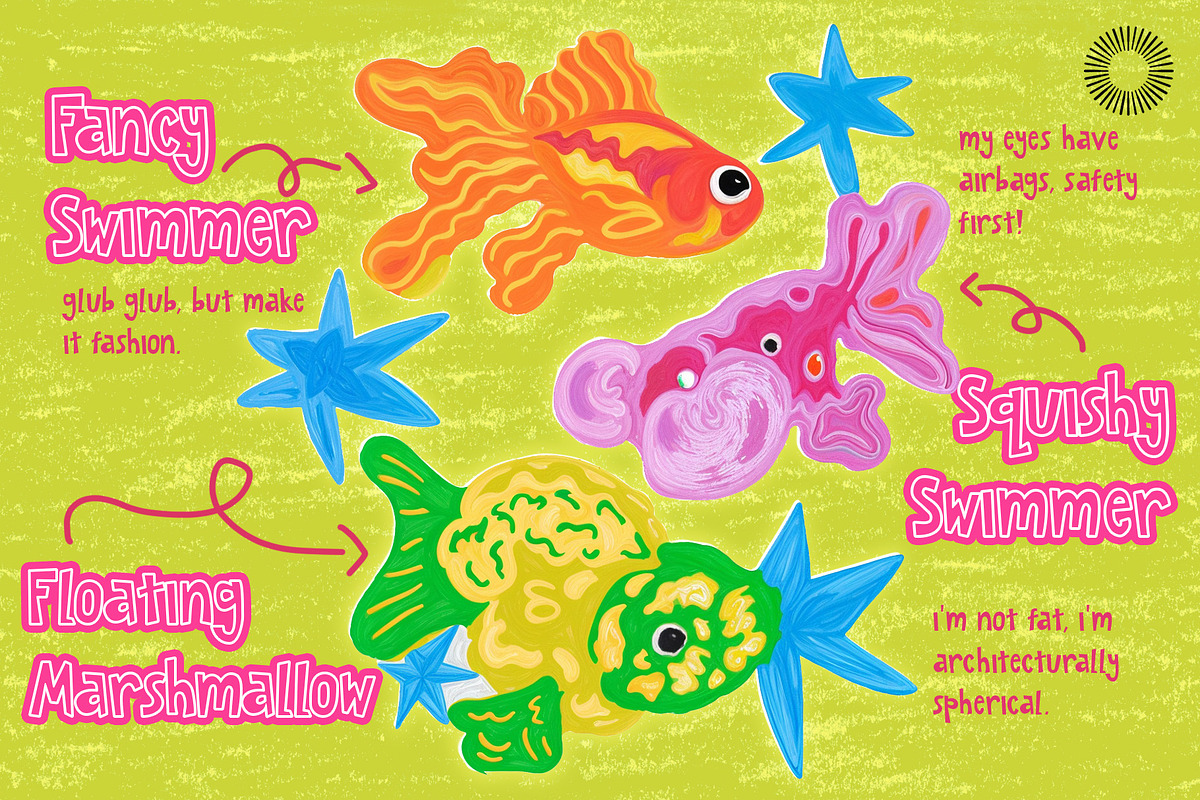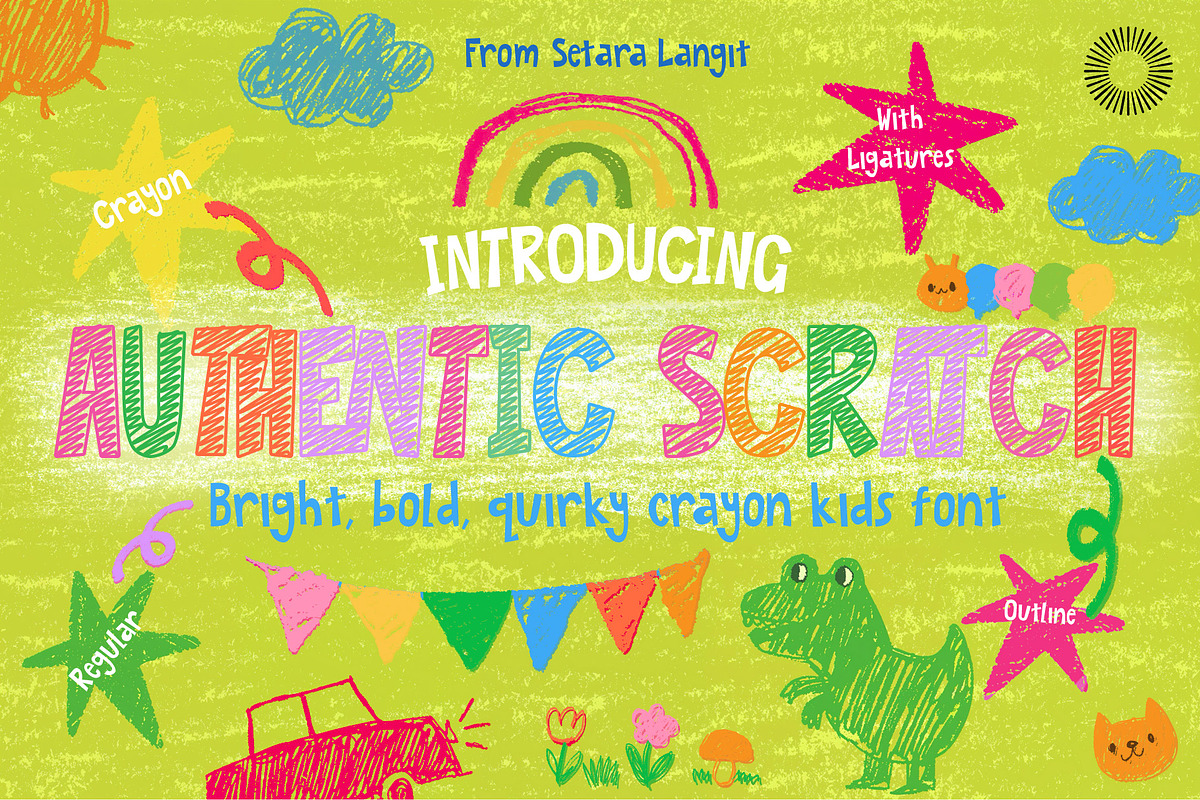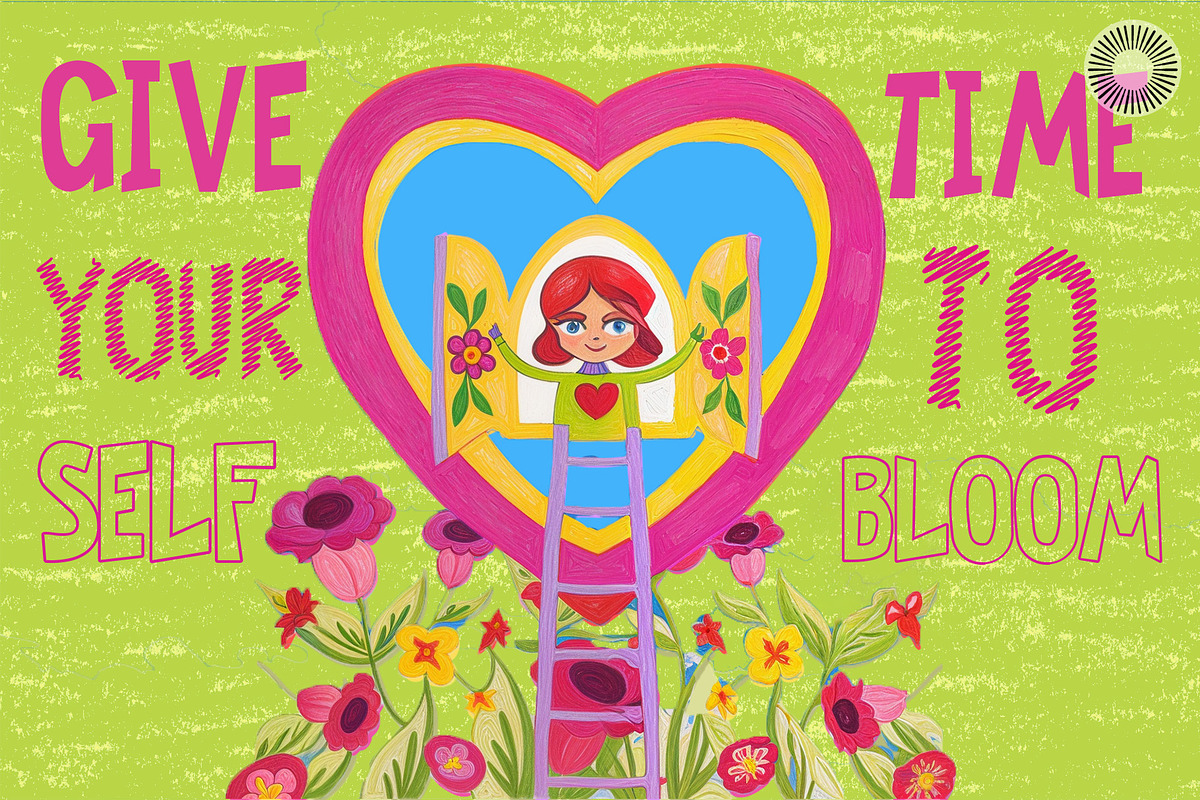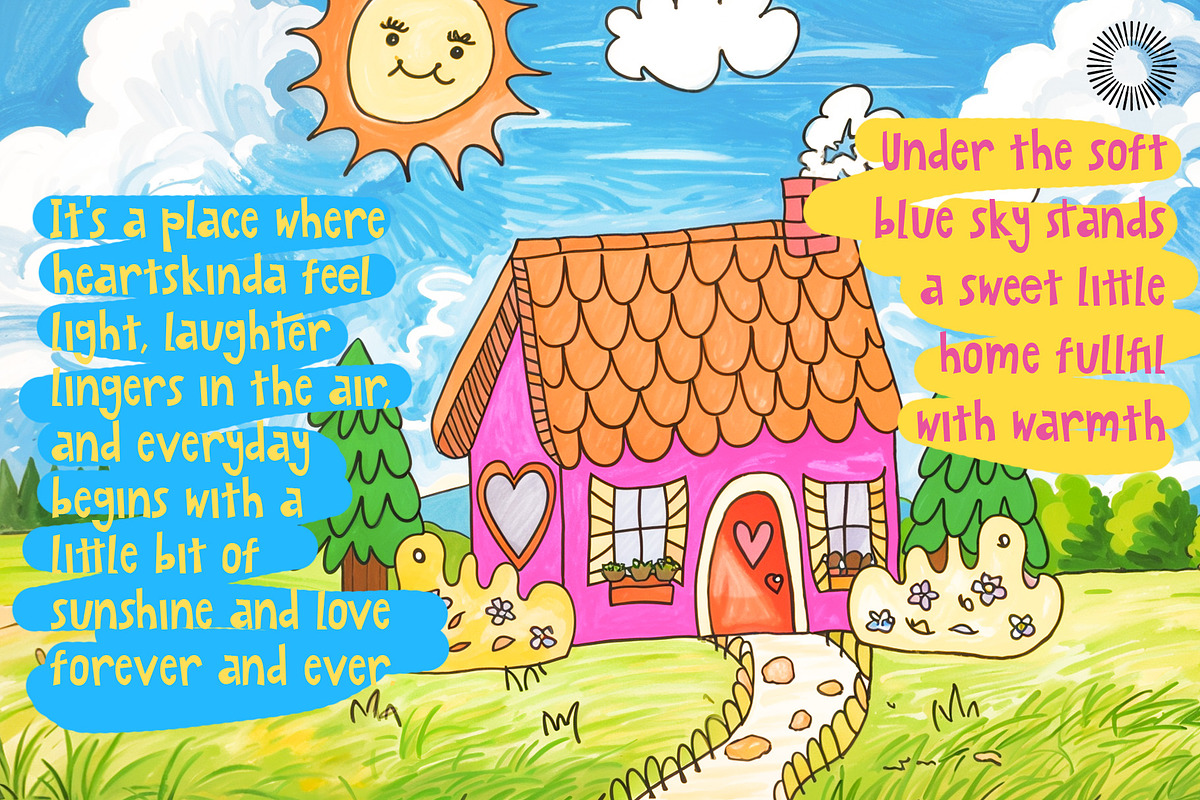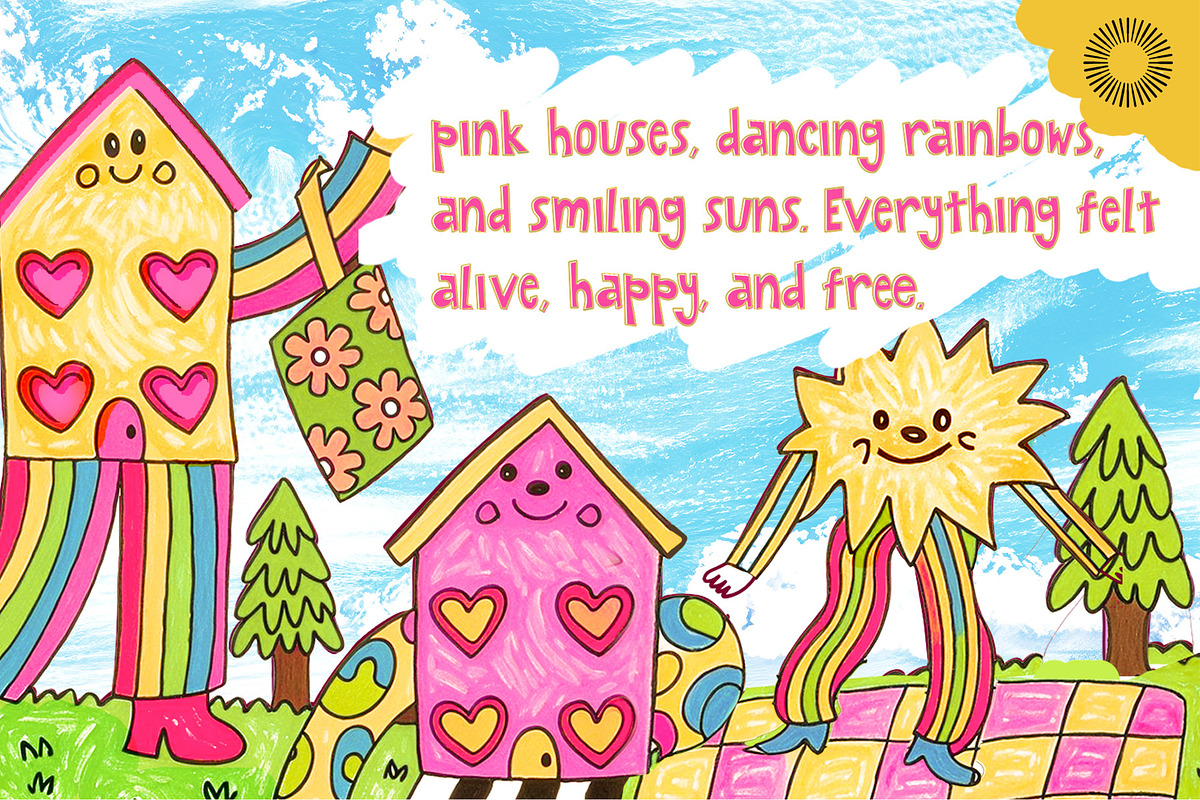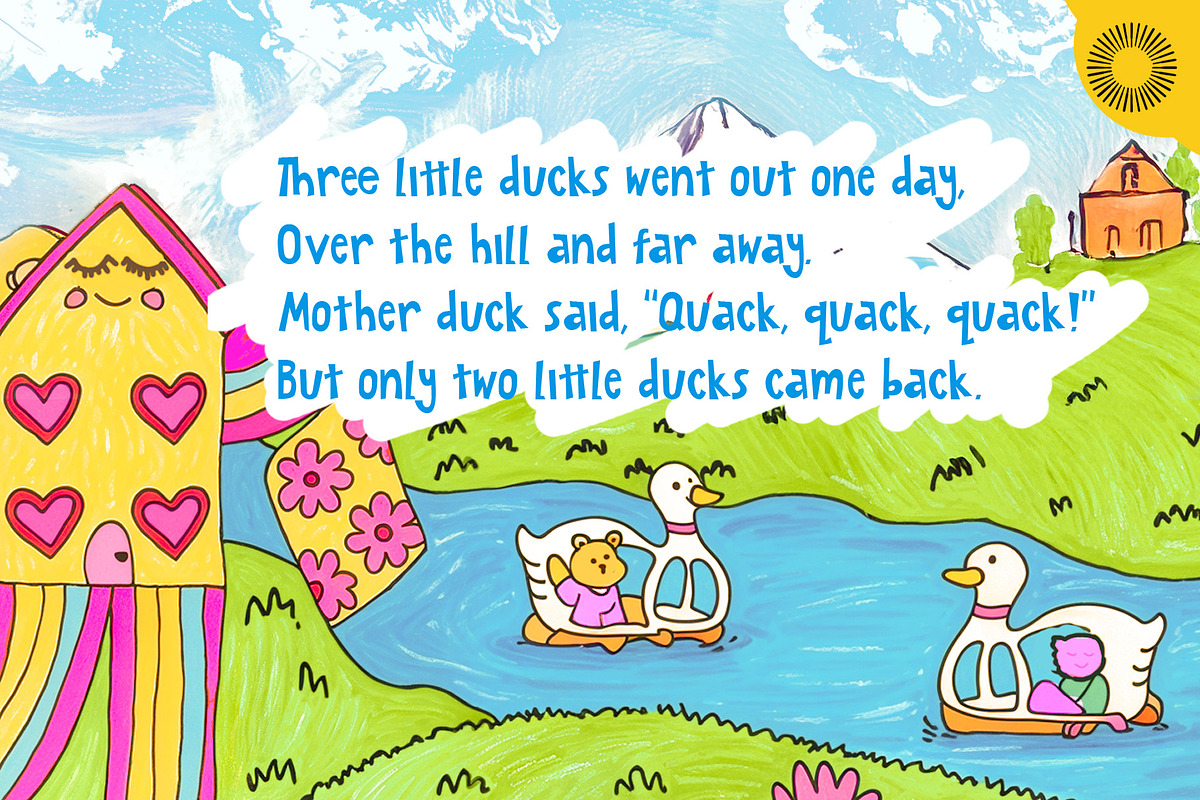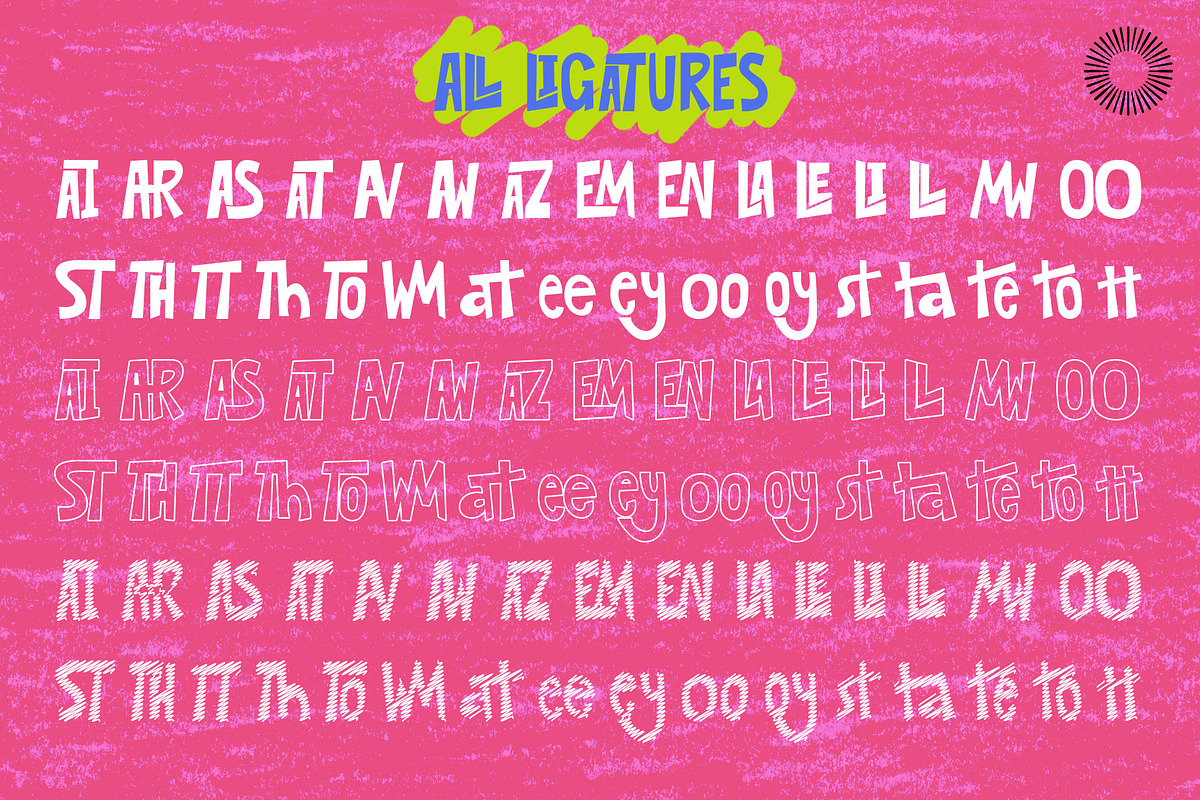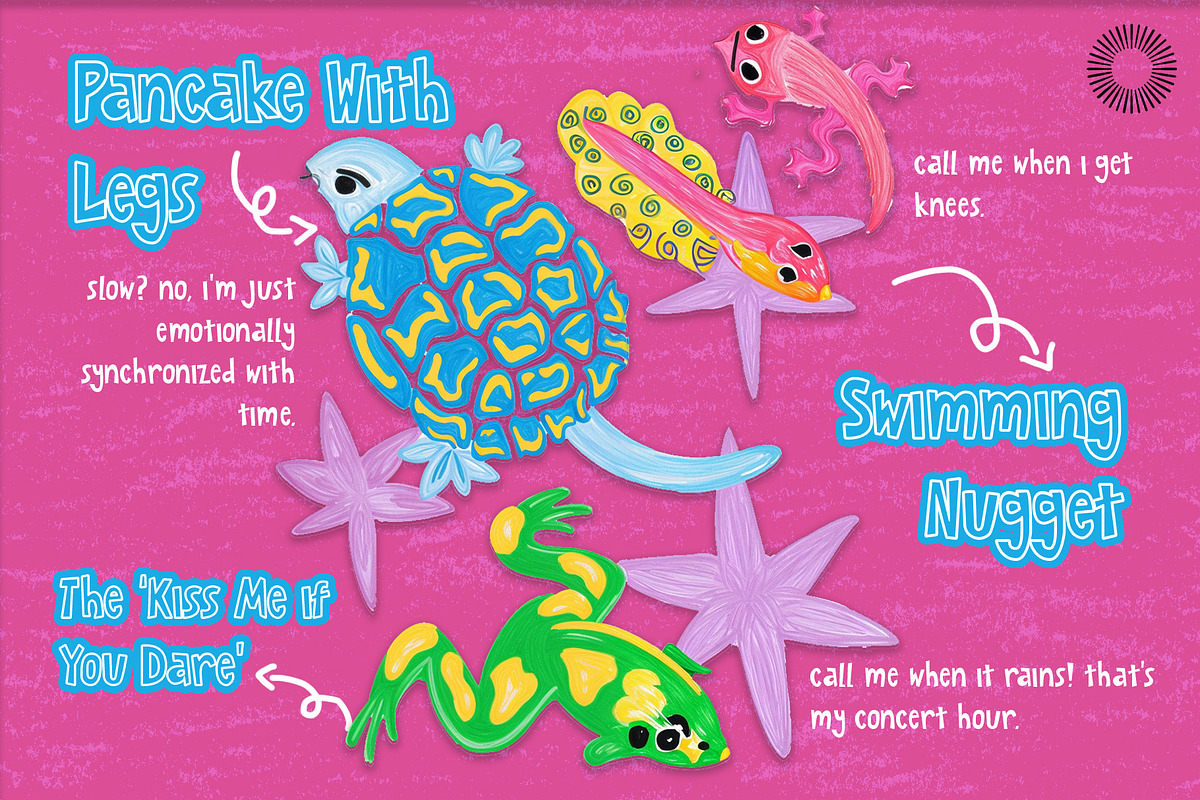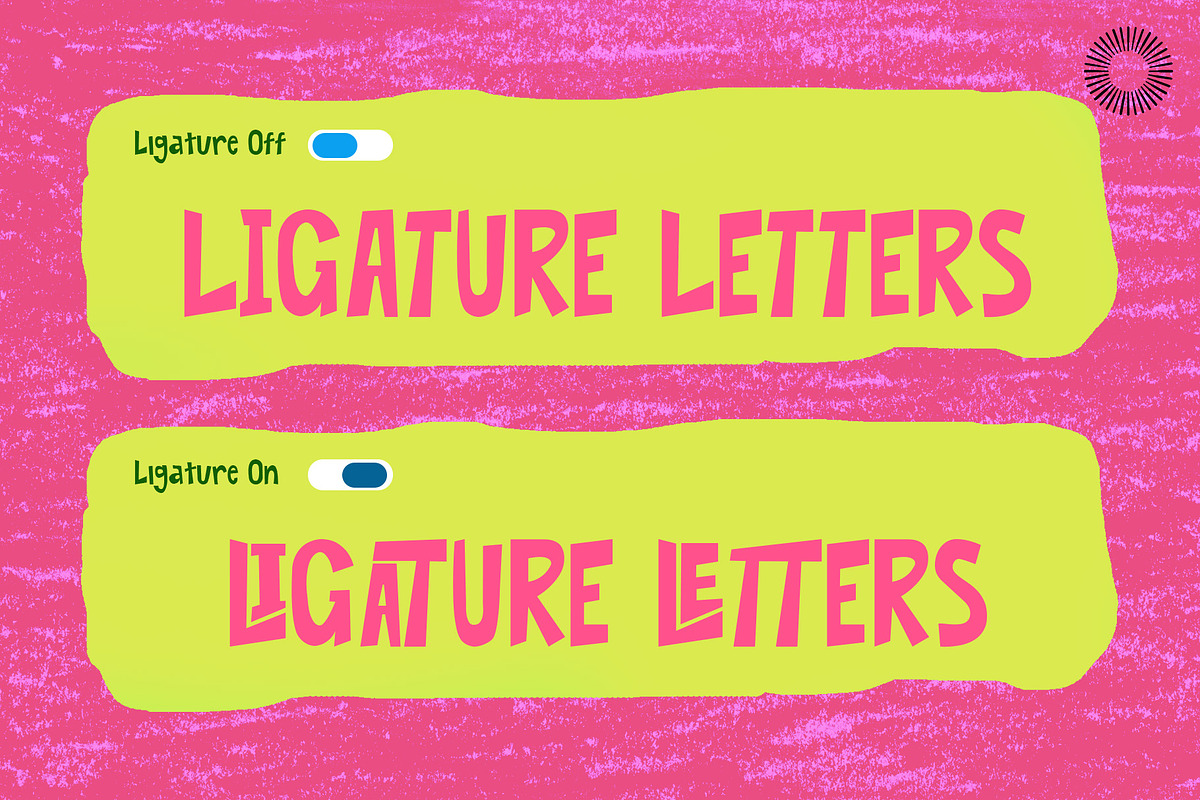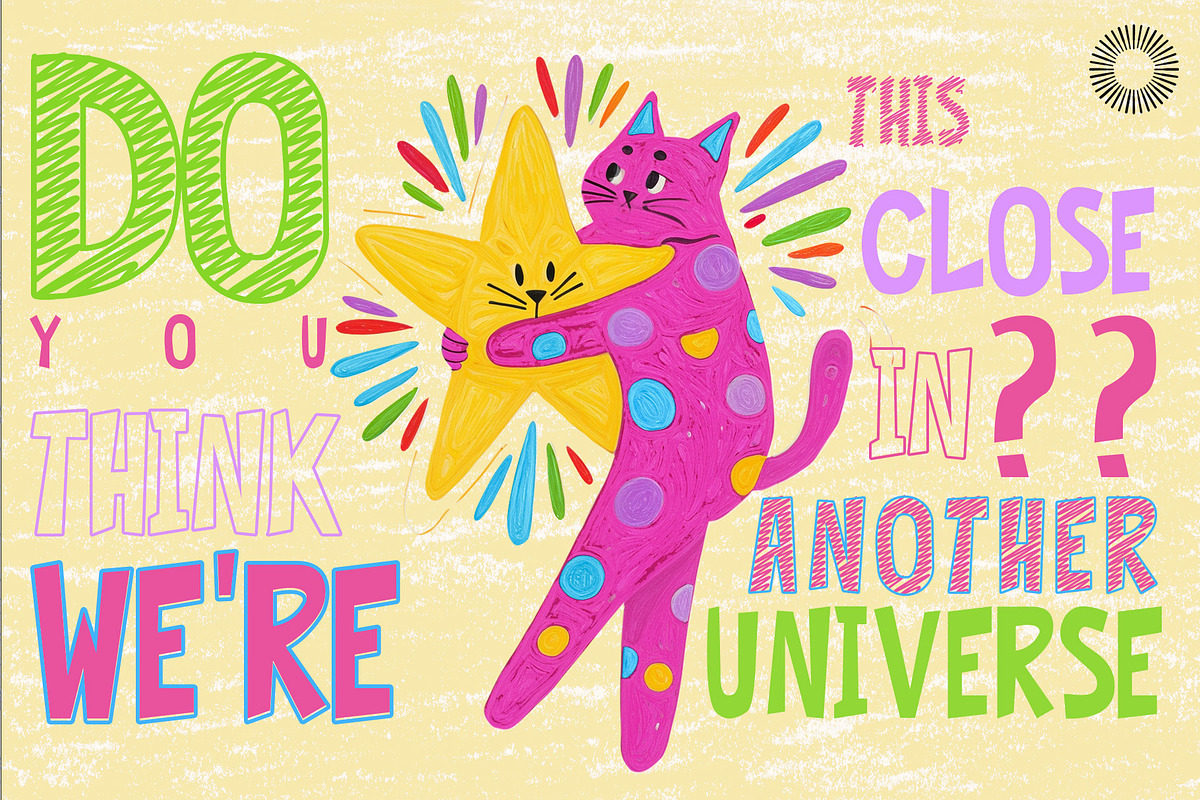
Authentic Scratch
Authentic Scratch is a bright, bold, and delightfully quirky crayon font that brings back the joy of childhood creativity. Every letter looks as if it’s been hand-sketched with vibrant crayon strokes, uneven, textured, and full of life. Perfect for playful designs, classroom projects, children’s books, posters, and anything that needs a spark of cheerful imperfection. This font captures the spontaneous charm of kids’ doodles, where colors never quite stay in the lines and imagination runs free. With its mix of irregular outlines and colorful personality, Authentic Scratch adds a handmade feel that’s both nostalgic and modern. Bring your projects to life with a font that celebrates authenticity, laughter, and a touch of messy magic, just like the world seen through a child’s eyes.